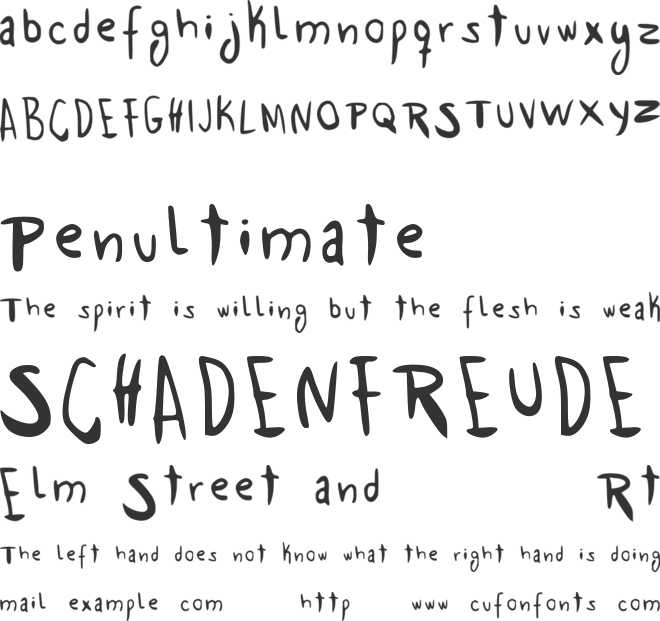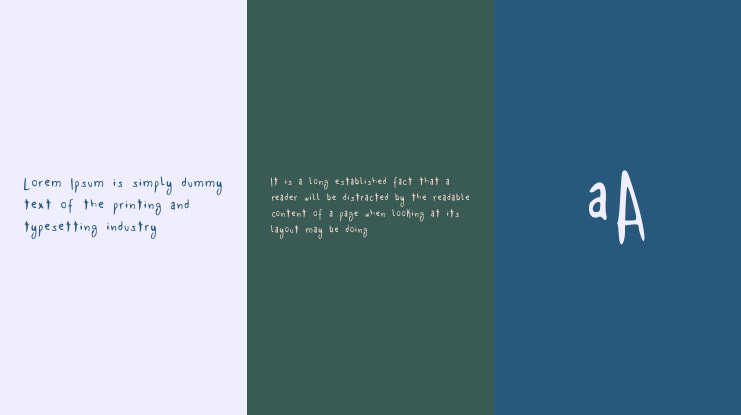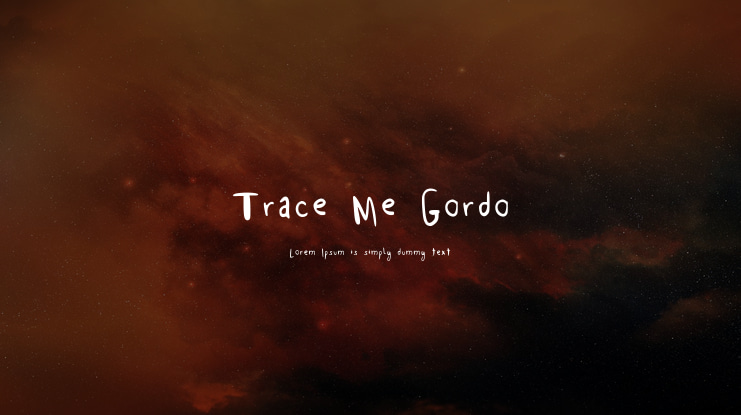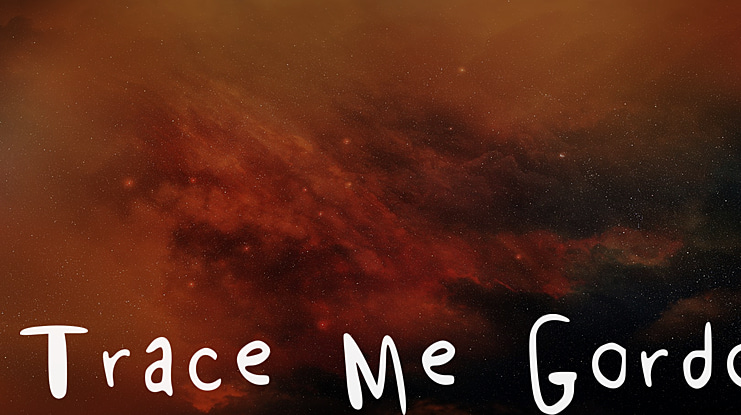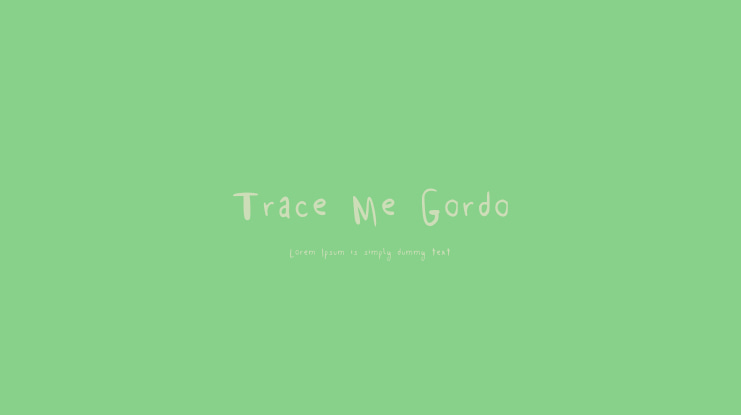
Trace Me Gordo Font
Another handwriting font, simple, made 100% in opensource enviroment under Linux. Hope you like it.
Originally traced with Glyphtracer